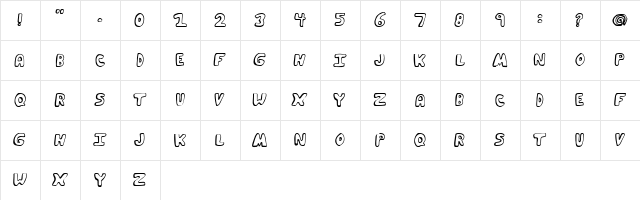
Funky Muskrat Regular
Design Context for Funky Muskrat Typeface
Funky Muskrat trades formality for fun, with bouncy, characterful letterforms that bring warmth and energy to any project.
Font Pairing: Pairs well with a rounded or humanist sans for body copy, maintaining the friendly tone without relying on Funky Muskrat to carry extended reading.
Pro Tip: Avoid using Funky Muskrat for long passages of text — it works best for headlines, labels, and short calls to action.